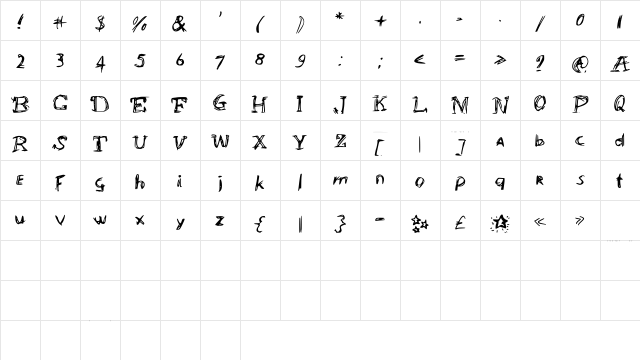
Complete aBrACaDabRAHOcUsSPoKuz Medium glyph index. Displaying only characters natively supported by aBrACaDabRAHOcUsSPoKuz Medium font.
aBrACaDabRAHOcUsSPoKuz is a composed and adaptable typeface that performs quietly and consistently across a wide range of design contexts.